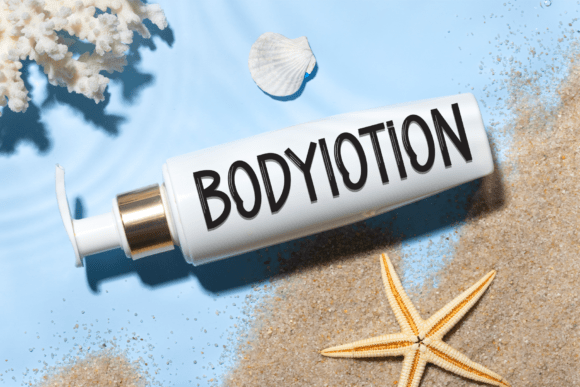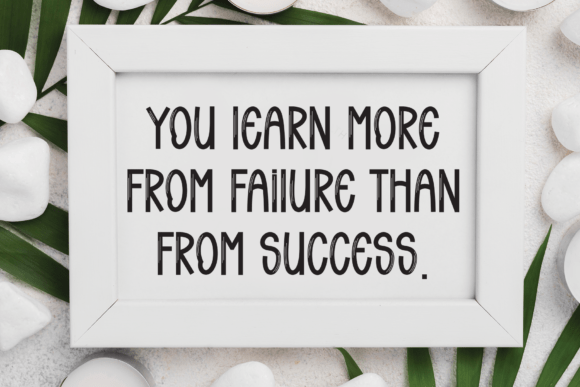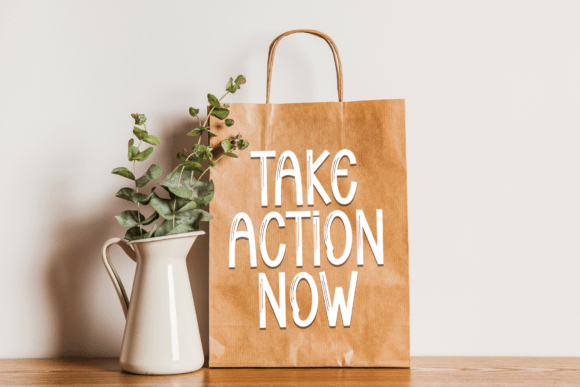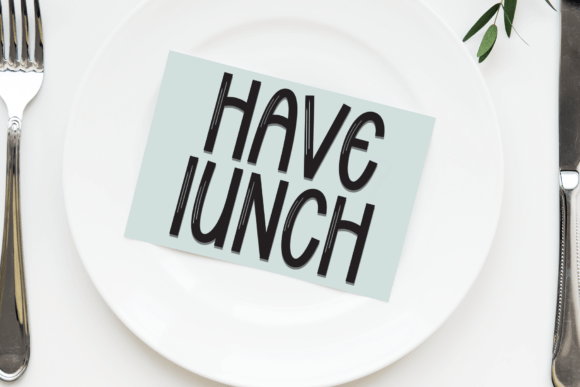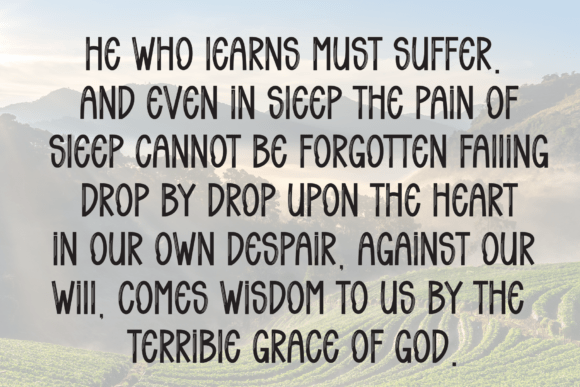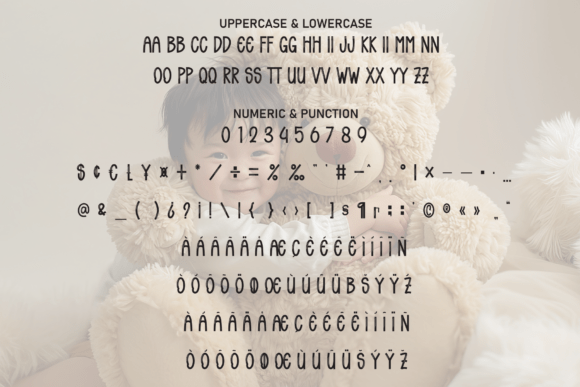
Baby Bear Font: The Perfect Choice for Your Design Projects
Are you looking for a font that can bring warmth and clarity to your design projects? Look no further than the Baby Bear Font. This casual and neat display font is designed to make your branding, headlines, and everyday designs stand out with its clean structure and approachable style.
What is Baby Bear Font?
Baby Bear Font is a carefully crafted display font that is perfect for designers and crafters who want to add a touch of warmth and personality to their projects. With its balanced letterforms, this font offers excellent readability and charm, making every message feel genuine and inviting.
Key Features of Baby Bear Font
- Clean Structure: The Baby Bear Font features a clean and simple structure that makes it easy to read and understand.
- Approachable Style: The font has an approachable style that makes it perfect for branding, headlines, and everyday designs.
- Balanced Letterforms: The font features balanced letterforms that offer excellent readability and charm.
- Warmth and Clarity: The Baby Bear Font is designed to bring warmth and clarity to your projects, making it perfect for designers and crafters who want to create a lasting impression.
Why Choose Baby Bear Font?
There are many reasons why you should choose Baby Bear Font for your design projects. Here are a few:
- Versatility: The Baby Bear Font is versatile and can be used for a wide range of design projects, from branding and headlines to everyday designs.
- Readability: The font features balanced letterforms that offer excellent readability, making it perfect for designs that require a clear and concise message.
- Uniqueness: The Baby Bear Font has a unique and approachable style that sets it apart from other fonts.
Design Ideas Using Baby Bear Font
The Baby Bear Font is a versatile font that can be used for a wide range of design projects. Here are a few design ideas to get you started:
- Branding: Use the Baby Bear Font to create a logo or branding materials for your business.
- Headlines: Use the font to create attention-grabbing headlines for your blog posts, articles, or social media posts.
- Posters: Use the font to create posters for events, promotions, or advertisements.
- Social Media Graphics: Use the font to create social media graphics, such as Facebook posts, Twitter headers, or Instagram stories.
Here are a few tips and tricks to help you get the most out of the Baby Bear Font:
- Experiment with Font Sizes: Experiment with different font sizes to find the perfect size for your design project.
- Use Color: Use color to add a pop of personality to your design project.
- Pair with Other Fonts: Pair the Baby Bear Font with other fonts to create a unique and visually appealing design.
In conclusion, the Baby Bear Font is a versatile and approachable font that is perfect for designers and crafters who want to add a touch of warmth and personality to their projects. With its clean structure, balanced letterforms, and readability, this font is sure to make your design projects stand out. So why wait? Download the Baby Bear Font today and start creating amazing designs!